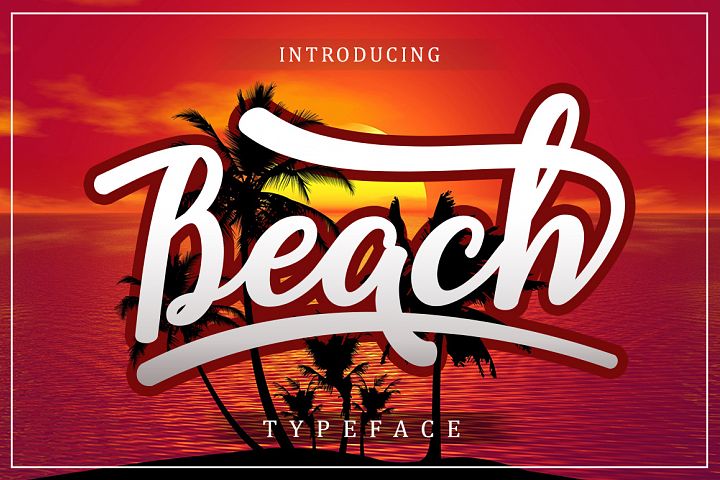
Beach Font
Beach Font is available here for free download and for personal use. This is a palm typeface that is really much similar to the ocean font. Include open type function with quite a whole lot of alternates. As an end result, permit’s have a study the font texture pics we established properly here to apprehend it more specifically.t combines beneficiant of archive font with a minimum version in stroke weight.
It‚Äôs a specifically vincentia script tough that your maximum of the time will not need to apply in large quantities. It’s far tremendous for headings and making an announcement collectively along with your kind, despite the fact that.